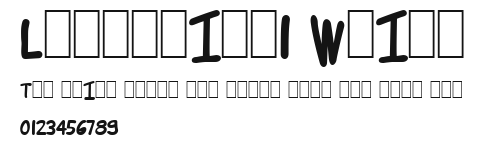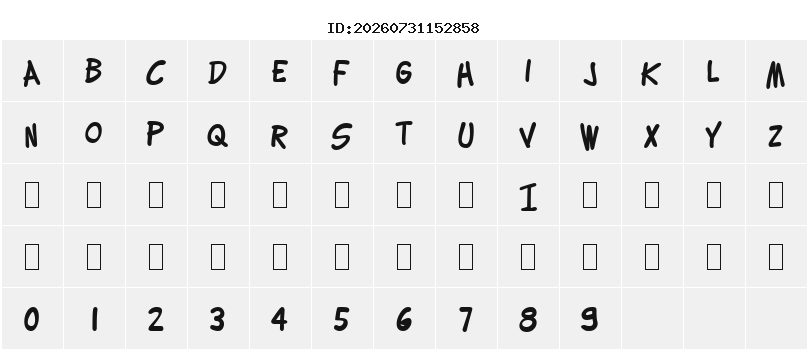
Lettering1 Weird Preview
• Font Name: Lettering1 Weird
• Font ID: Alts:Lettering1 Weird Bold
• Full Font Name: Lettering1 Weird Bold
• Version: 1.0 Mon Jul 03 10:39:33 1995
• PostScript Name: Lettering1-WeirdBold
• Character Count: 69
About Lettering1 Weird.ttf
Lettering1 Weird.ttf is a modern, elegant sans-serif font designed for ultimate readability and visual harmony. Perfect for branding, headlines, web design, and print materials.